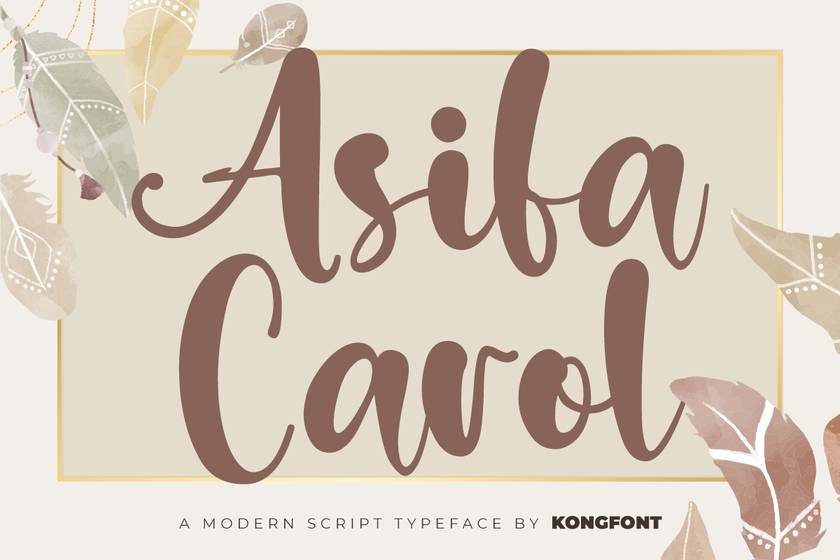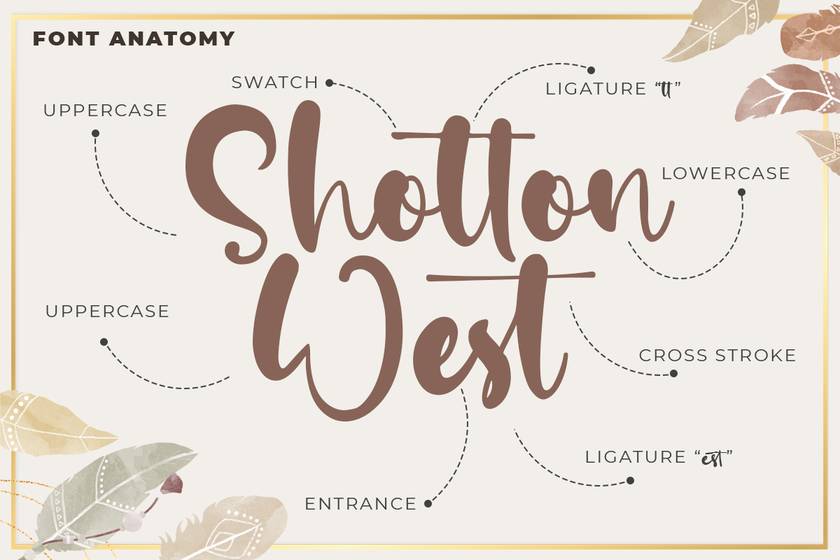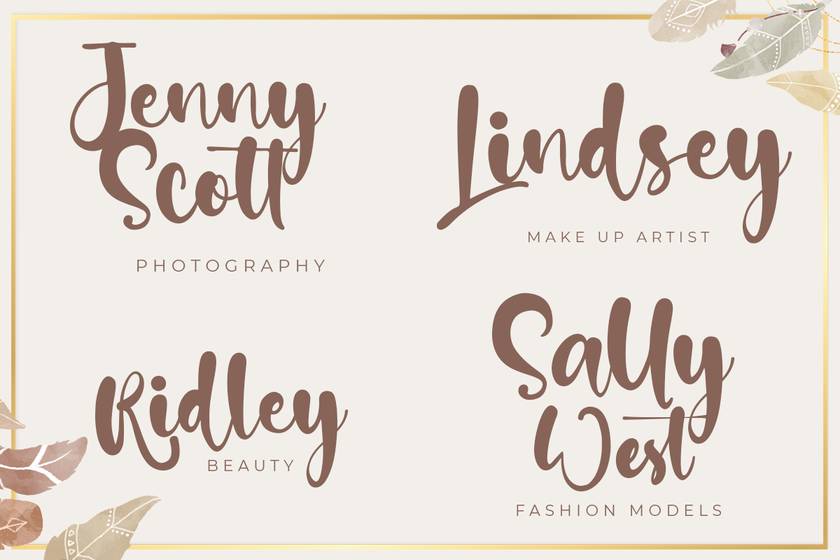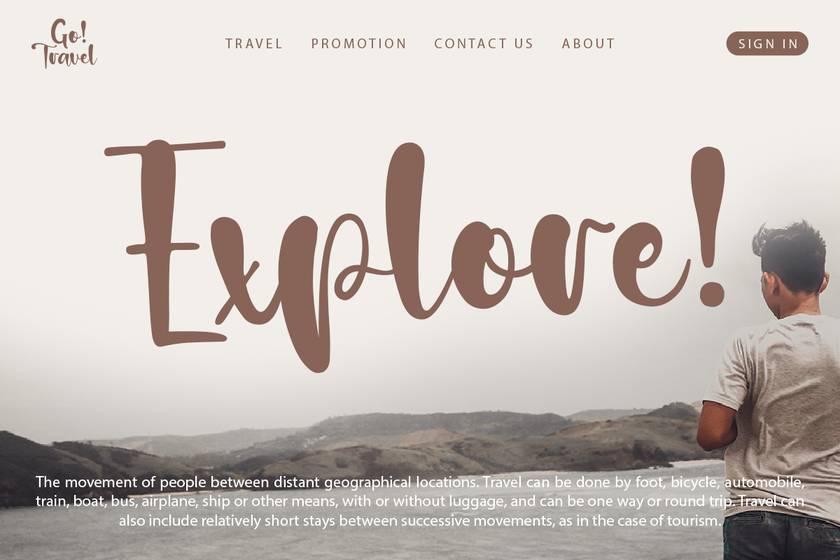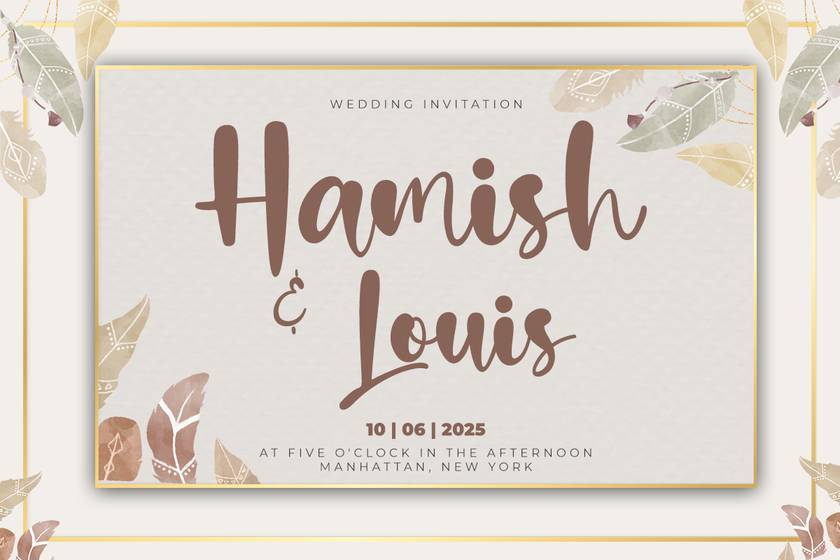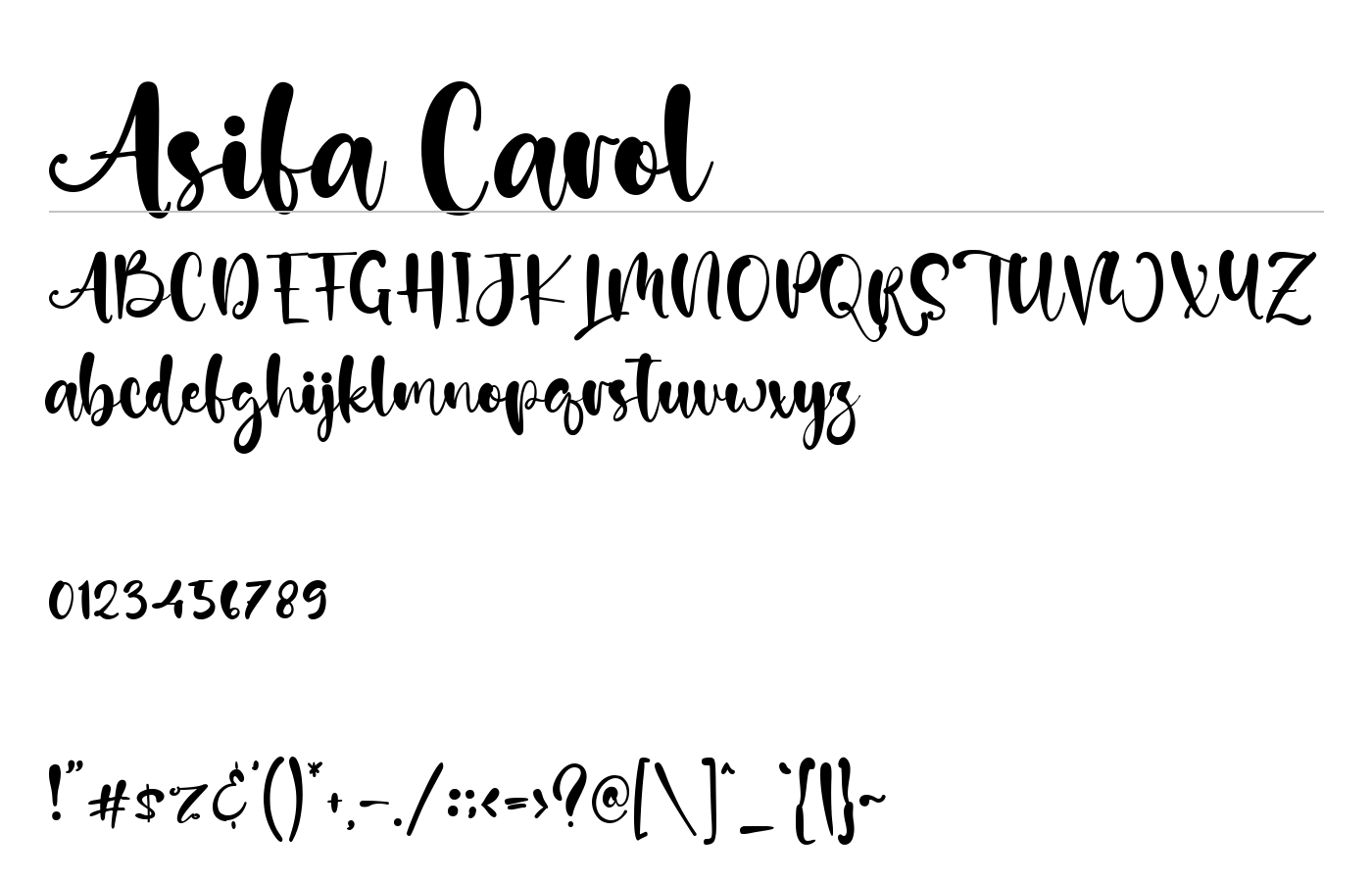
Asifa Carol is a playful and elegant script font with a casual, hand-lettered feel. It features smooth, flowing strokes with a mix of thick and thin lines, creating a dynamic contrast that adds charm and personality. Ideal for branding, invitations, and creative projects, this font brings a warm, friendly touch with its distinctive letter shapes and lively rhythm.